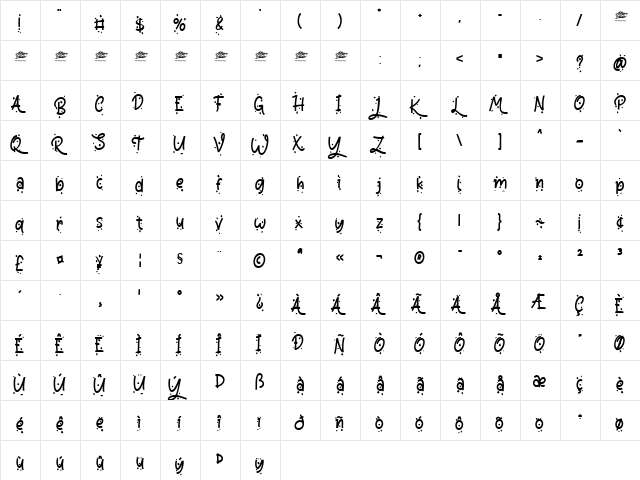
Riana Star Display - PUL Regular
Design Context for Riana Star Display - PUL Typeface
Riana Star Display - PUL brings ornamental detail and strong personality to headlines and identities, where visual impact matters more than quiet functionality.
Font Pairing: Pair with a clean neutral sans-serif for body copy to let Riana Star Display - PUL's character lead without overwhelming the composition.
Pro Tip: Treat Riana Star Display - PUL as the centrepiece of your typographic hierarchy. One strong heading set in a decorative face can carry an entire layout.